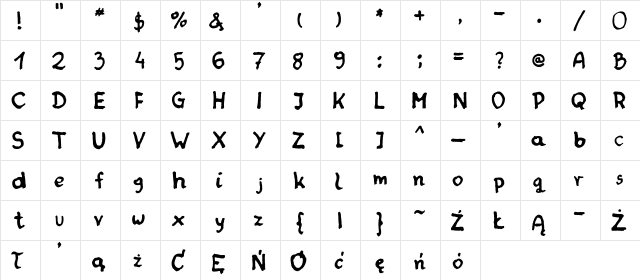
Rybnik Regular
| Designer | bartek nowak |
Design Context for Rybnik Typeface
Rybnik is a composed and adaptable typeface that performs quietly and consistently across a wide range of design contexts.